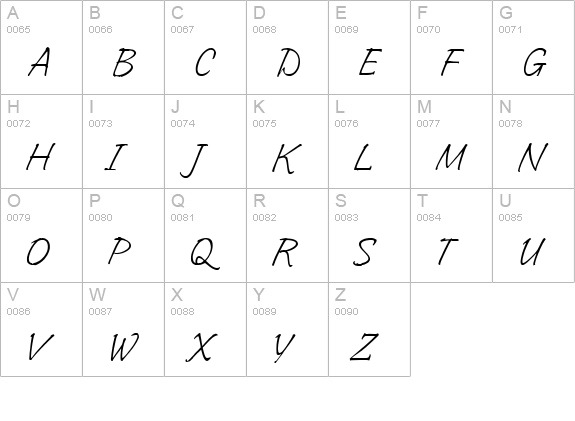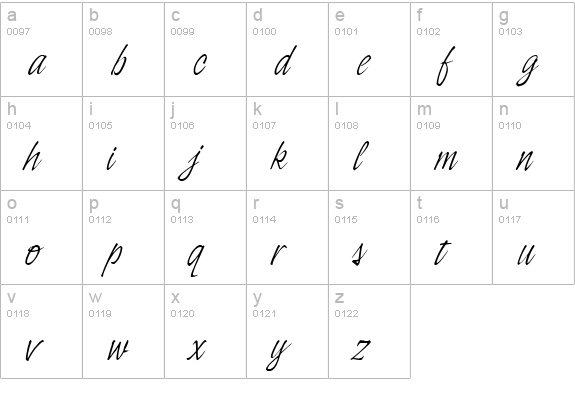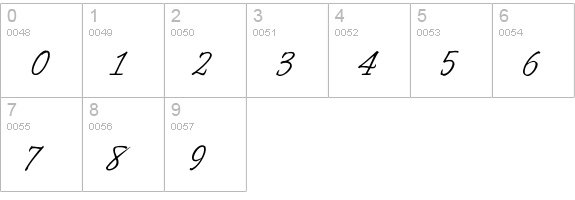
Kasimir Font Details
Kasimir is a stunning and sophisticated font that exudes elegance and charm. With its graceful curves and stylish letterforms, this typeface is perfect for adding a touch of class to any design project. Whether you are creating invitations, posters, or branding materials, Kasimir will elevate your work to a whole new level. The best part? Kasimir is completely free to download at FontsMarket.com. That's right, you can enjoy the beauty and versatility of this font without spending a dime. So why wait? Enhance your creations with Kasimir today and let your creativity shine!